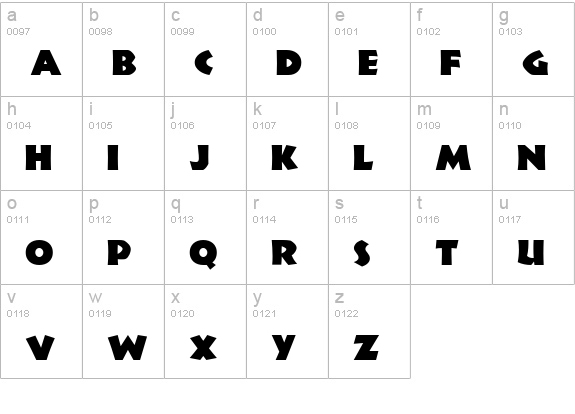
Jungle Fever NF is a whimsical and energetic display font that captures the essence of a lush jungle adventure. Its playful yet bold design makes it perfect for projects that require a touch of exotic flair. The intricate detailing and organic shapes of this font evoke a sense of mystery and intrigue, transporting the viewer to a vibrant tropical paradise. Best of all, Jungle Fever NF is available for free download at FontsMarket.com! This means you can easily add a touch of jungle magic to your designs without breaking the bank. Whether you are creating posters, branding materials, or social media graphics, this font is sure to make your projects stand out. Embrace the wild side with Jungle Fever NF and let your creativity run free!